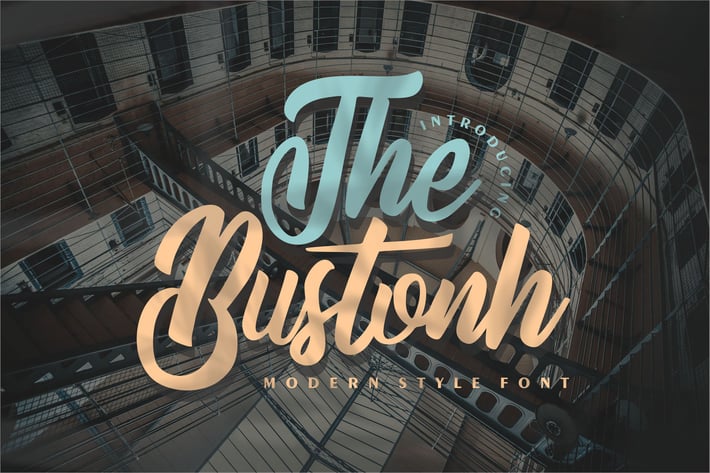
The Bustonh | Modern Style Font
The Bustonh | Modern Style Font with a calligraphy style, So beautiful on invitation like greeting cards, branding materials, business cards, quotes, posters, and more!